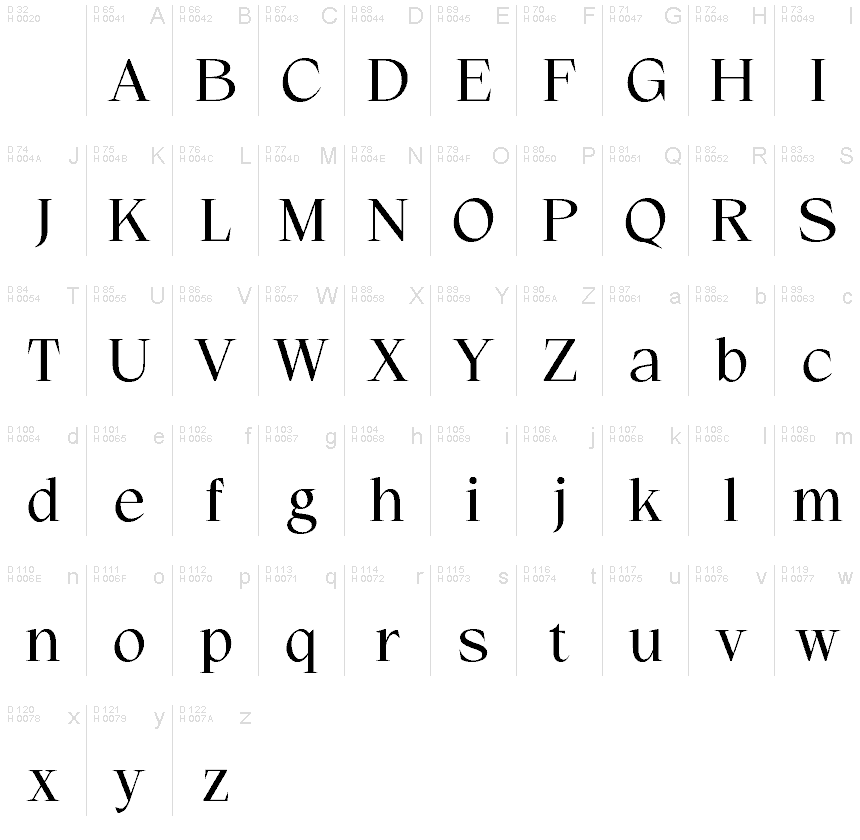
Wikolia Demo Regular
Wikolia font by Craft Supply Co is an elegant, sophisticated, and classic serif typeface. It has refined curvature with an authoritative presence influenced by traditional letterforms.
Use it for branding, product packaging, invitations, logos, magazine designing, apparel design, posters and flyers layout, social media banner creation, book covers and inside pages formatting.